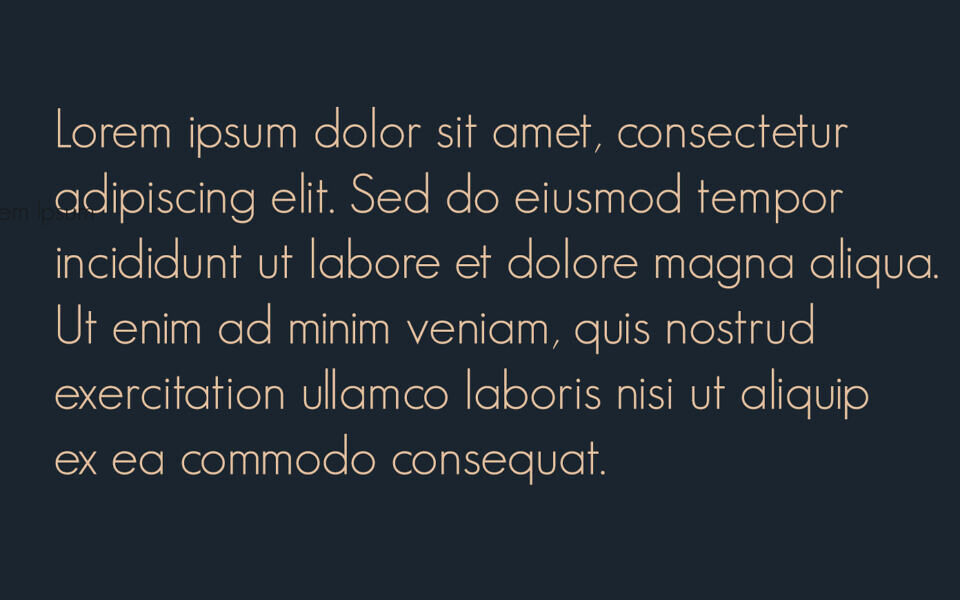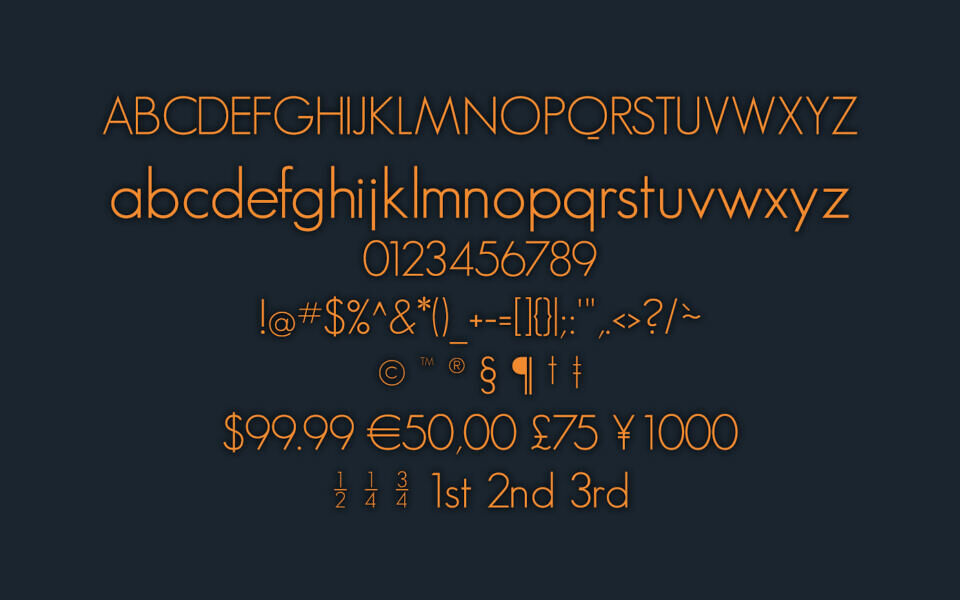
Geo Sans Light Font
Geo Sans Light, designed by Manfred Klein, is a minimalist, geometric sans-serif typeface with a clean, modern aesthetic. Its light weight and open letterforms convey simplicity and elegance, making it ideal for logos, headlines, and branding projects.
Inspired by Bauhaus principles, Geo Sans Light balances functionality with subtle sophistication, ensuring excellent readability across print and digital media. With a timeless yet contemporary feel, this versatile font is perfect for designers seeking a refined, understated look for their creative work.
Designed by: Manfred Klein